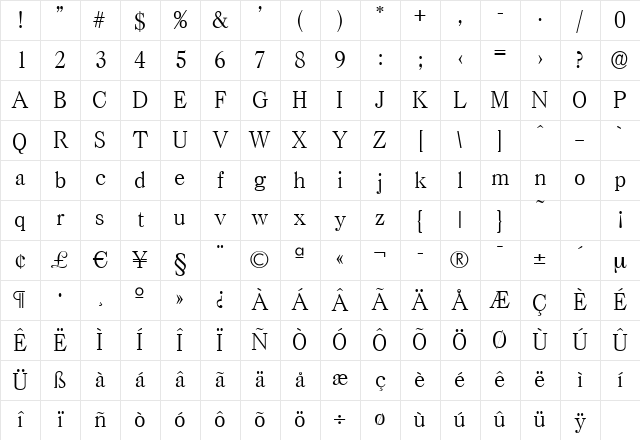
WesleyBecker-Light Regular
Design Context for WesleyBecker-Light
WesleyBecker-Light is a composed and adaptable typeface that performs quietly and consistently across a wide range of design contexts. Its slender proportions lend an understated elegance to any composition.